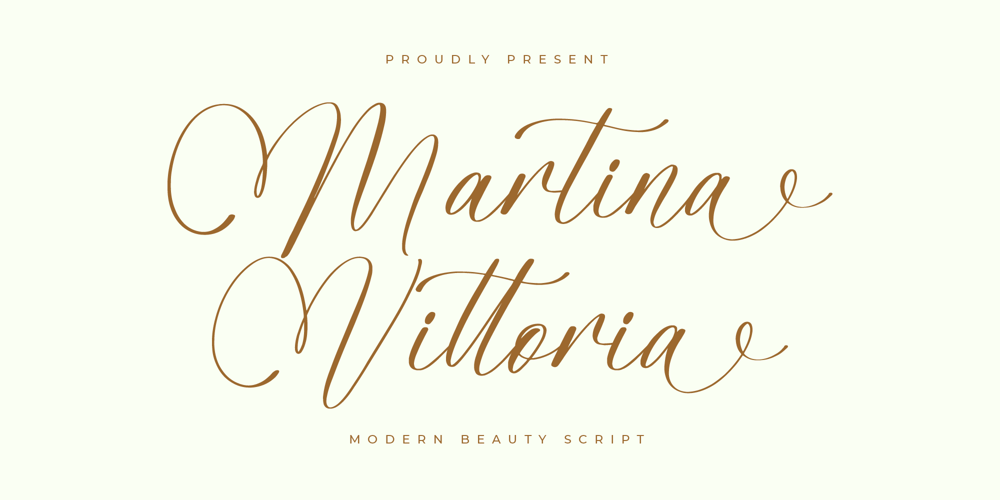
Martina Vittoria
Martina Vittoria font
Martina Vittoria Font Family was designed by Heru Utama Putra and published by Letterena Studios. Martina Vittoria contains 2 styles and family package options. Martina Vittoria is a charming handwritten font that exudes warmth and friendliness. With its smooth, flowing strokes and playful curves, it brings a sense of whimsy to invitations, packaging, and social media graphics. Spread joy and delight with the inviting charm of Martina Vittoria.